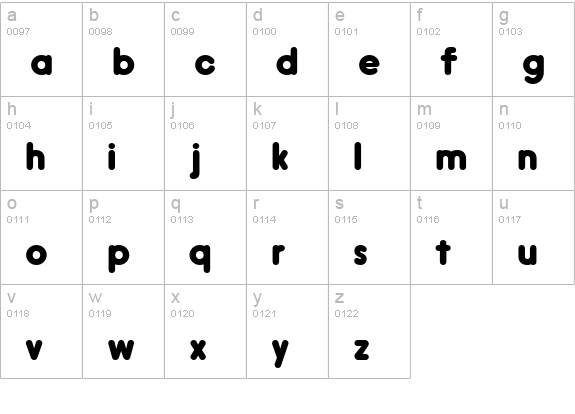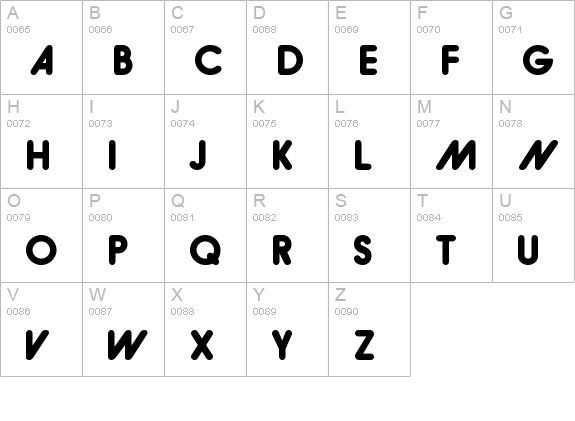
Hiruko Black Alternate Font Details
Hiruko Black Alternate is a maximum-weight, dramatic variant in the Hiruko typeface family \xE2\x80\x94 well suited to maximum-impact headlines, posters, and packaging.
Introducing Hiruko Black Alternate font, a stunning display typeface that exudes power and elegance. This font is a perfect choice for bold headings, impactful logos, and eye-catching designs. With its unique alternate characters, Hiruko Black Alternate offers a captivating and distinctive look that will make your designs stand out from the crowd. The strong and assertive letterforms of Hiruko Black Alternate demand attention, while its sleek and modern design adds a touch of sophistication to any project. Whether you're designing a magazine cover, a brand identity, or a website, this font will effortlessly enhance your visual communication and leave a lasting impression. What makes Hiruko Black Alternate font even more incredible is that it is freely available to download at FontsMarket.com. This means that you can easily access and use this exceptional typeface without any cost. The convenience of having such a high-quality font at your fingertips, ready to elevate your designs, is truly invaluable. So don't miss out on the opportunity to enhance your creative endeavors with Hiruko Black Alternate font. Download it today from FontsMarket.com and unlock its unlimited potential. Let your imagination run wild and create captivating designs that leave a lasting impact on your audience.